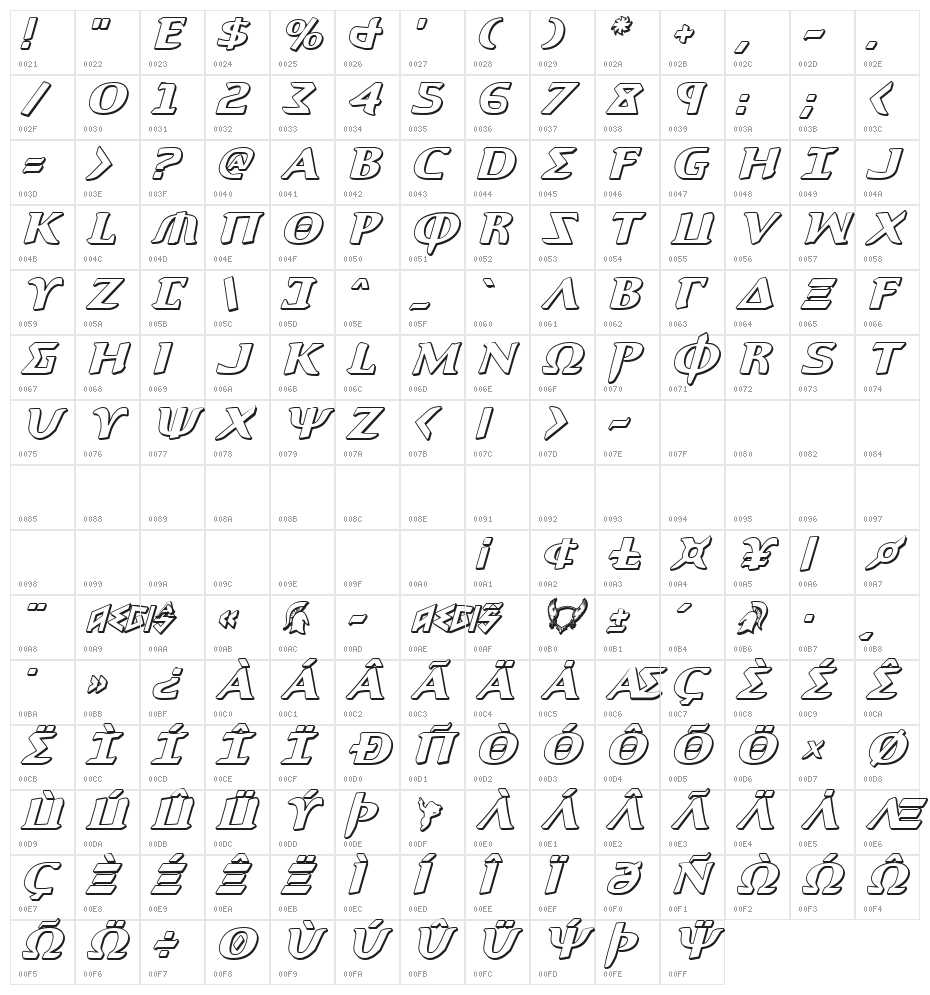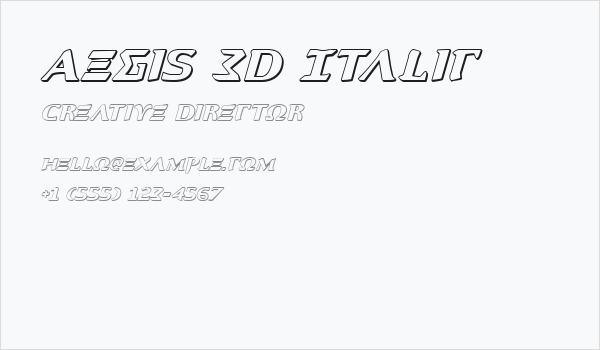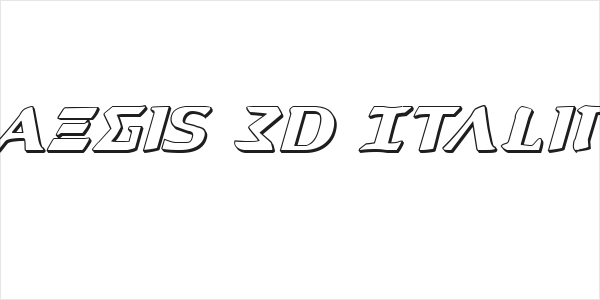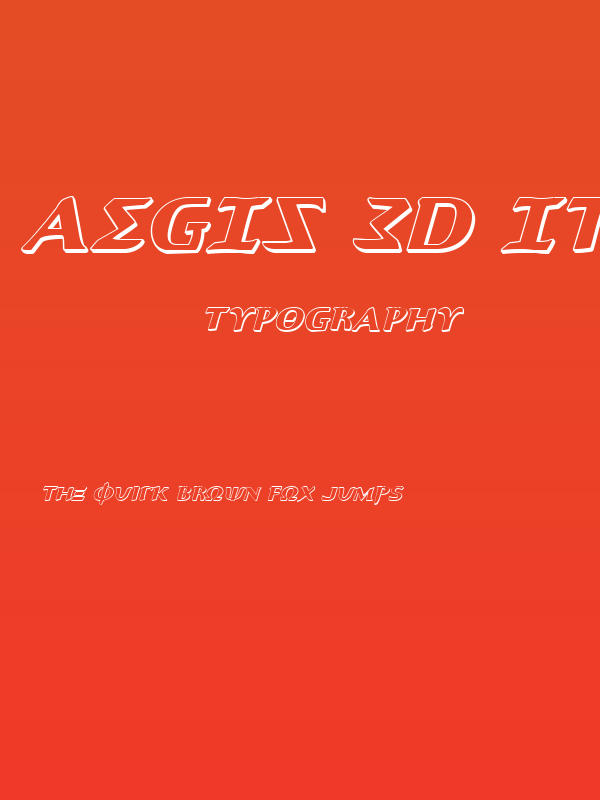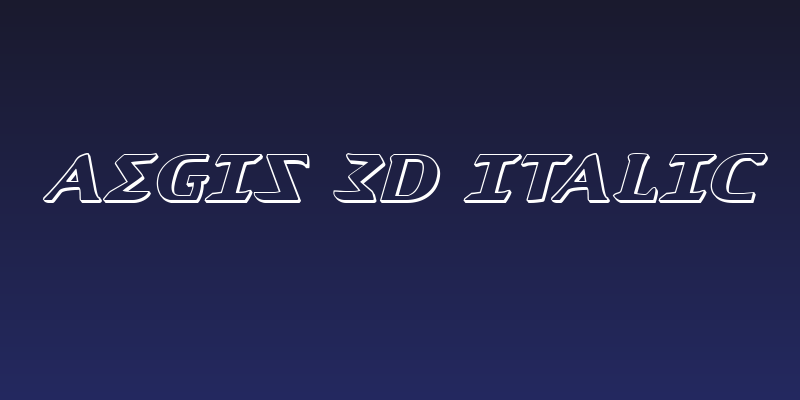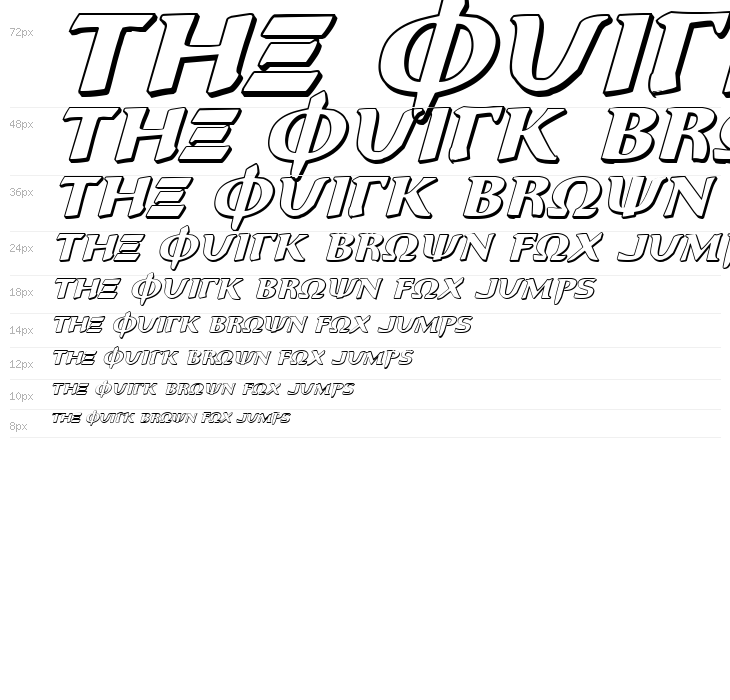
Aegis 3D Italic Font
Aegis 3D Italic Description
This font features a bold, three-dimensional design with italicized characters, giving it a dynamic and futuristic appearance. The letters are outlined, creating a shadow effect that enhances the 3D illusion. The style is geometric, with sharp angles and clean lines, making it visually striking. The uppercase and lowercase letters maintain a consistent style, while the numerals and special characters complement the overall design. This font is ideal for projects that require a modern and eye-catching typeface.
Overall StyleFuturistic
Proposed ProjectsIdeal for video game titles, sci-fi movie posters, technology branding, and futuristic-themed designs.